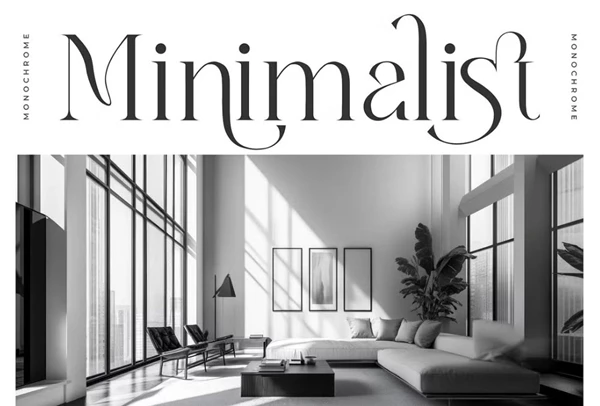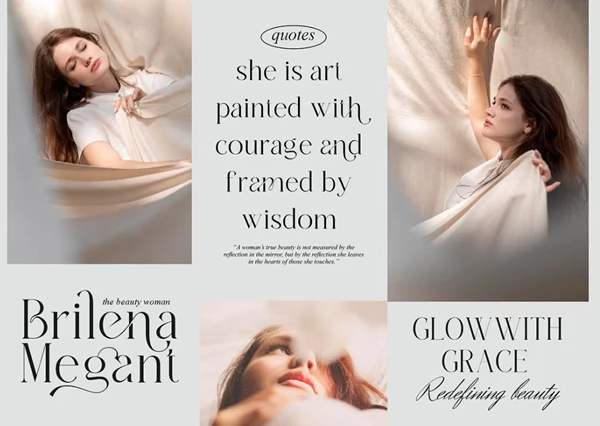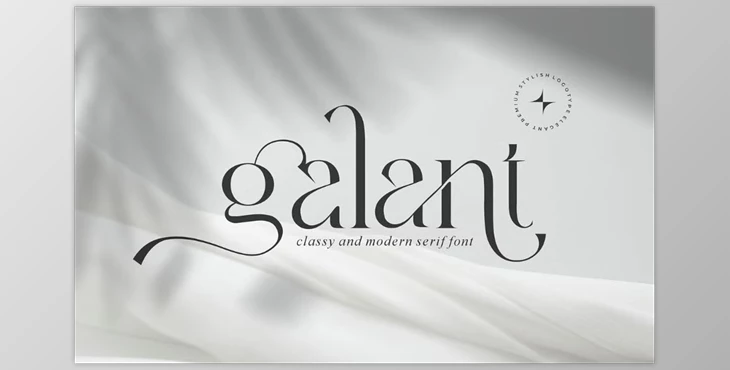
Galant || Modern Minimalist Serif Font:
Galant Serif is a modern, clean font suitable for all your design needs. This elegant, stylish font is perfect for branding, logo design, and even design projects like invitation cards, business cards, movie credits, and book covers. If you're looking for a modernized font that will work well with a variety of projects, Galant Stencil Serif is a great choice.
Some great features of Galant || Modern Minimalist Serif Font:
- Includes ligatures
- Contains upper-case and lower-case letters
- Includes numbers and punctuation
"Galant || Modern Minimalist Serif Font" Samples: